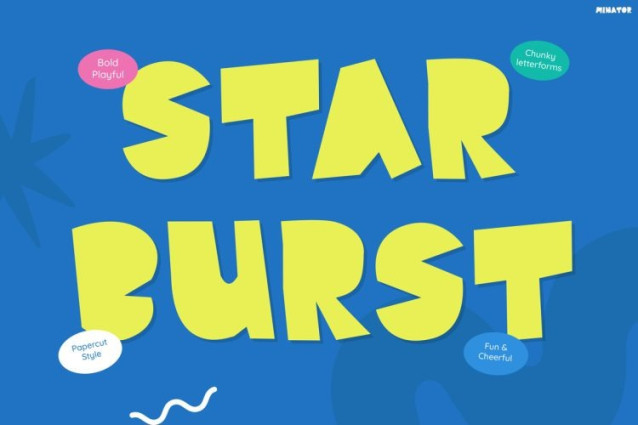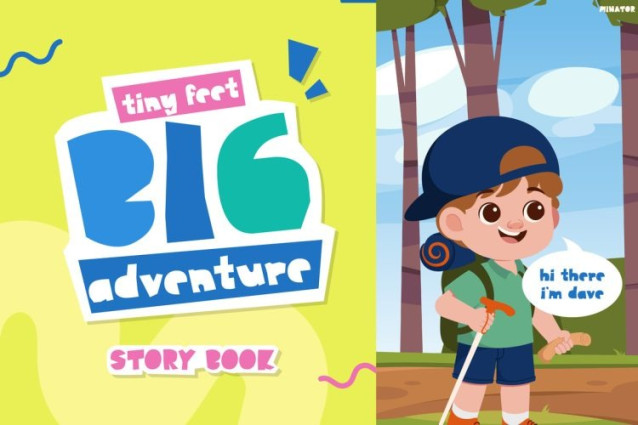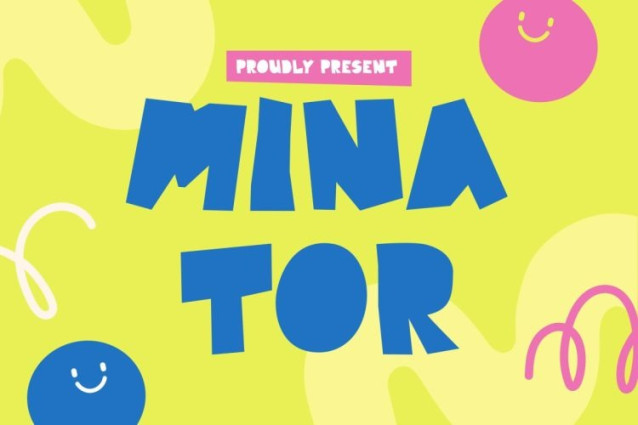
Minator Font
Minator Font a playful and adventurous vibe with chunky hand-drawn letters, fun curves, and energetic cartoon-inspired shapes. Furthermore, the font creates a bright and happy atmosphere that instantly grabs attention in children’s designs. Because of its bold structure and creative personality, Minator feels fun, expressive, and full of imagination. In addition, the playful lettering keeps every headline easy to read while still looking unique and exciting. As a result, your projects feel more lively, colorful, and engaging for young audiences.
Moreover, Minator blends cute storytelling aesthetics with modern playful typography, so it works perfectly for books, learning materials, and creative branding. Whether you are designing children’s storybooks, classroom posters, toy packaging, or social media content, this font helps every layout feel more interactive and memorable. Therefore, Minator becomes an excellent choice for creators who want typography that looks joyful, adventurous, and kid-friendly.